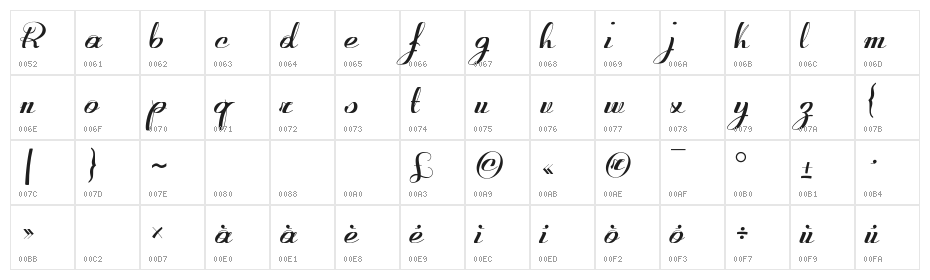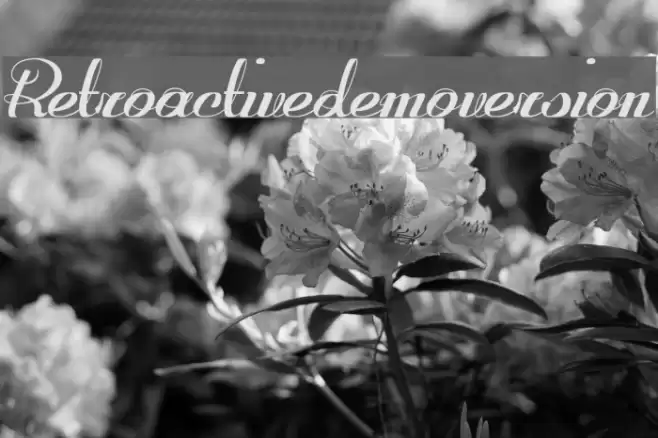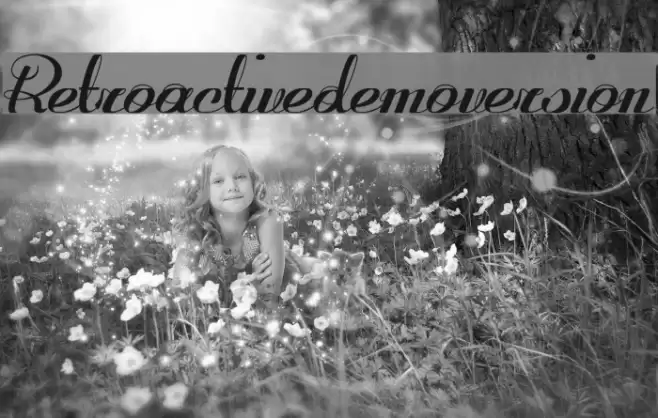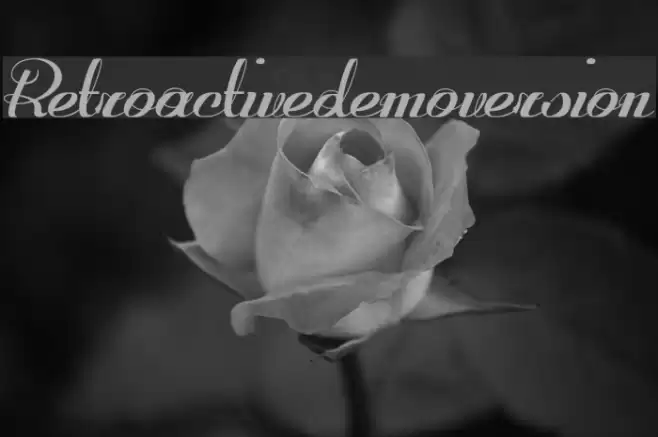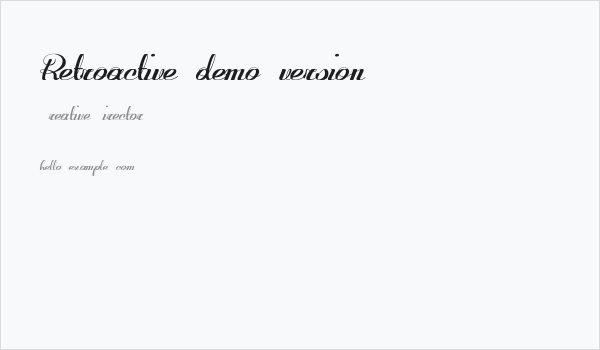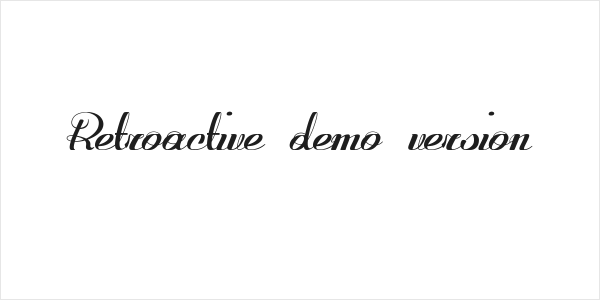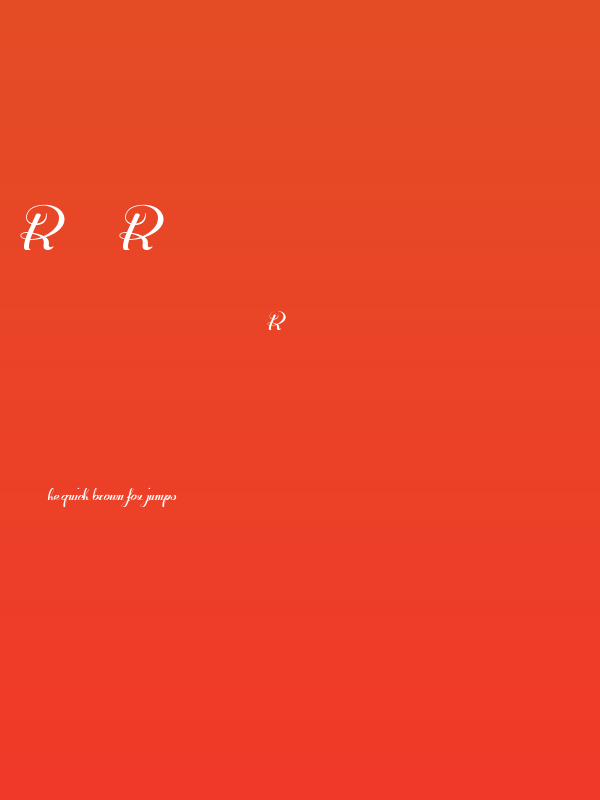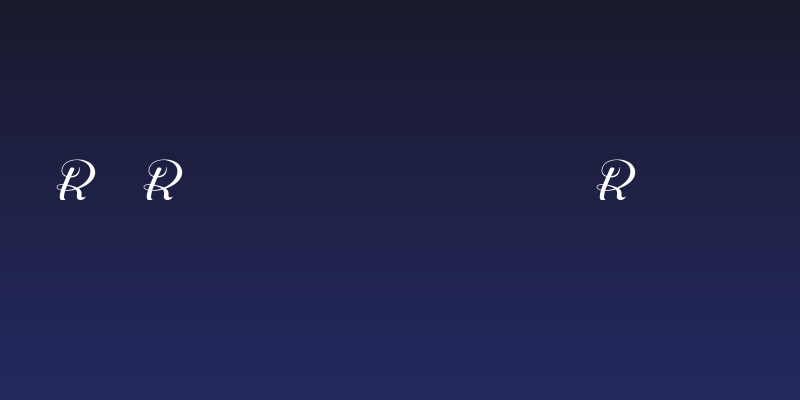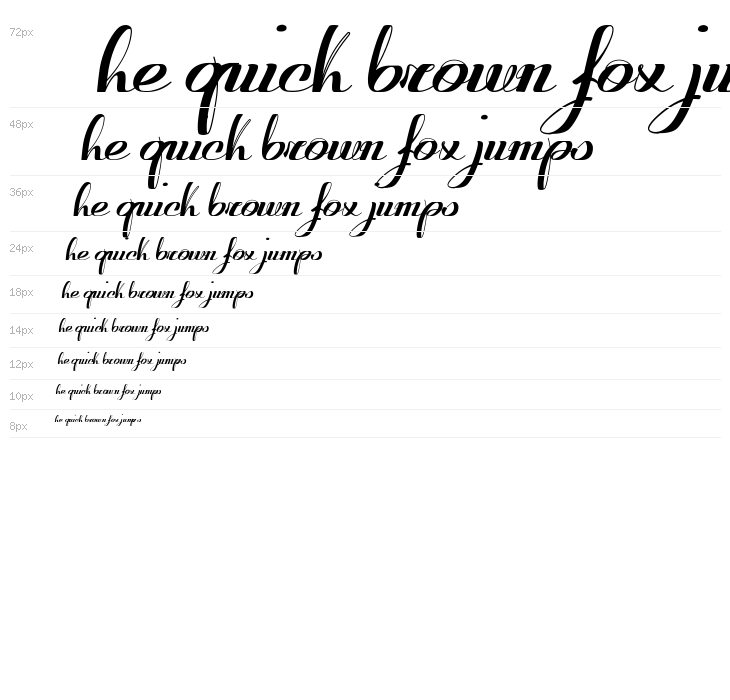
Retroactive_demo-version Font
Retroactive_demo-version Description
This font exudes a classic and elegant script style, characterized by its flowing, cursive letterforms. The uppercase letters are ornate, with intricate loops and swashes that add a touch of sophistication. The lowercase letters maintain a consistent slant, enhancing the fluidity and grace of the text. The font's design is reminiscent of traditional calligraphy, making it suitable for projects that require a formal and refined appearance. Its high contrast between thick and thin strokes adds to its visual appeal, ensuring that it stands out in any design.
| Proposed Projects | Ideal for wedding invitations, elegant branding, formal event programs, and decorative certificates. |